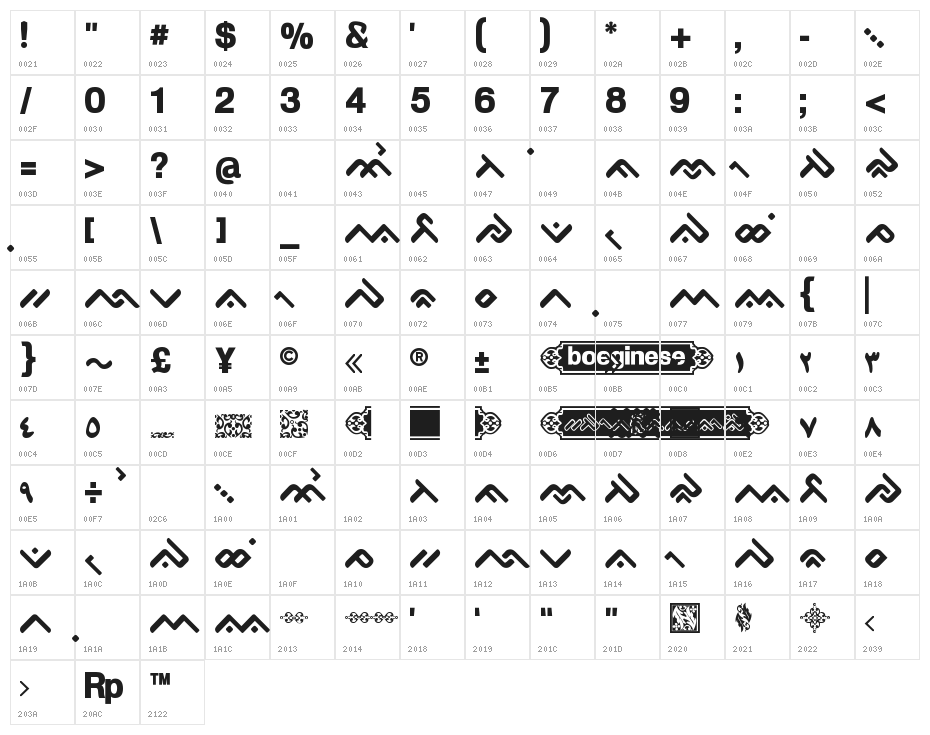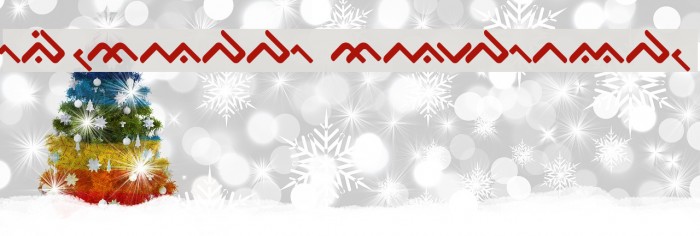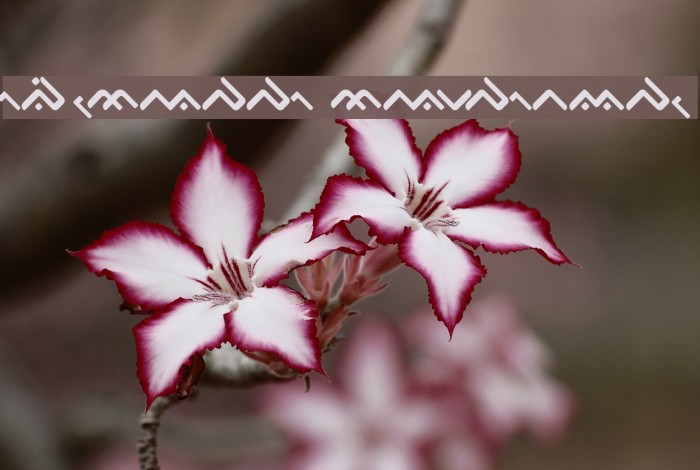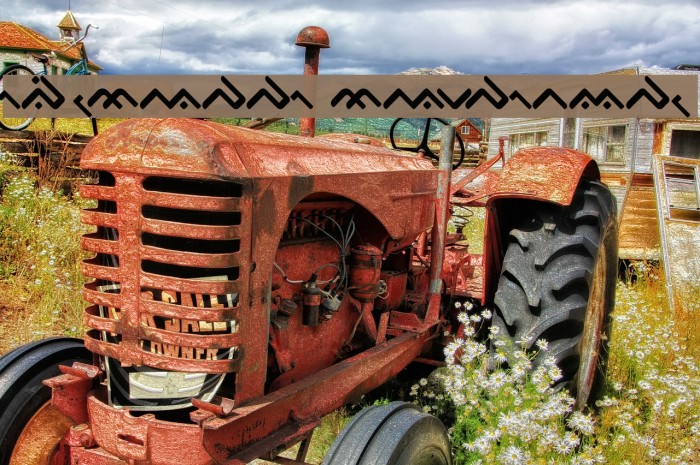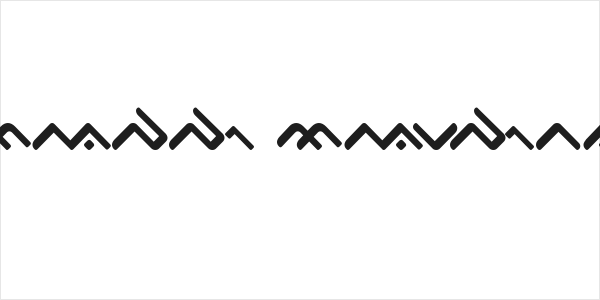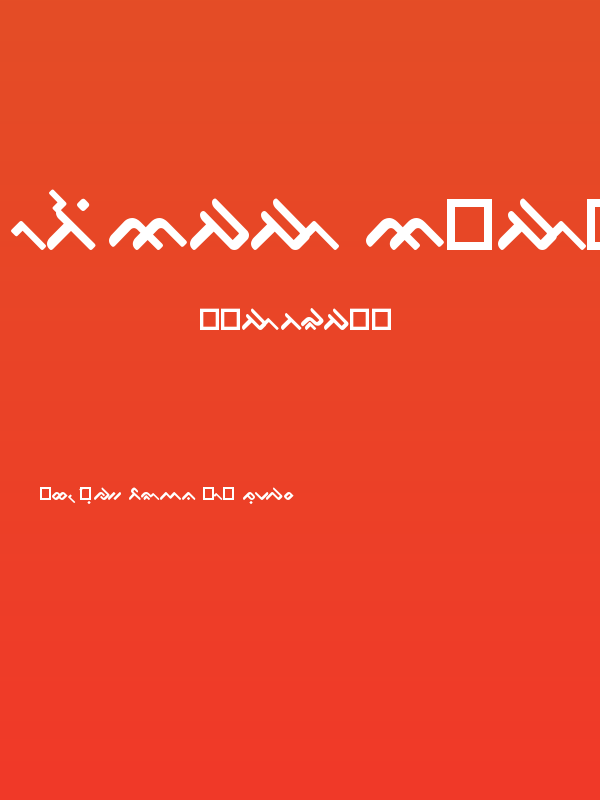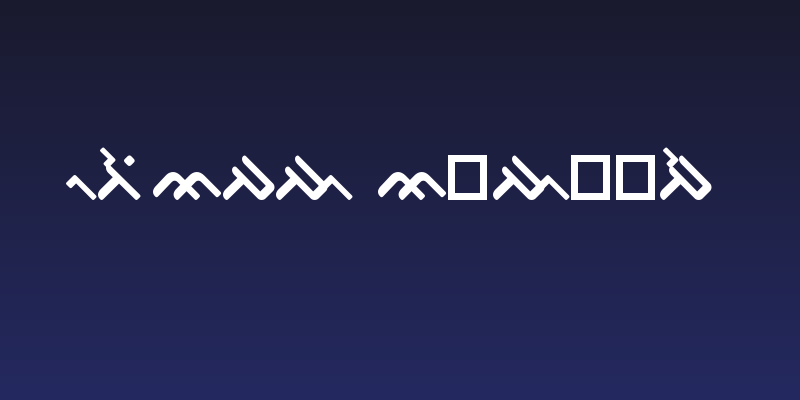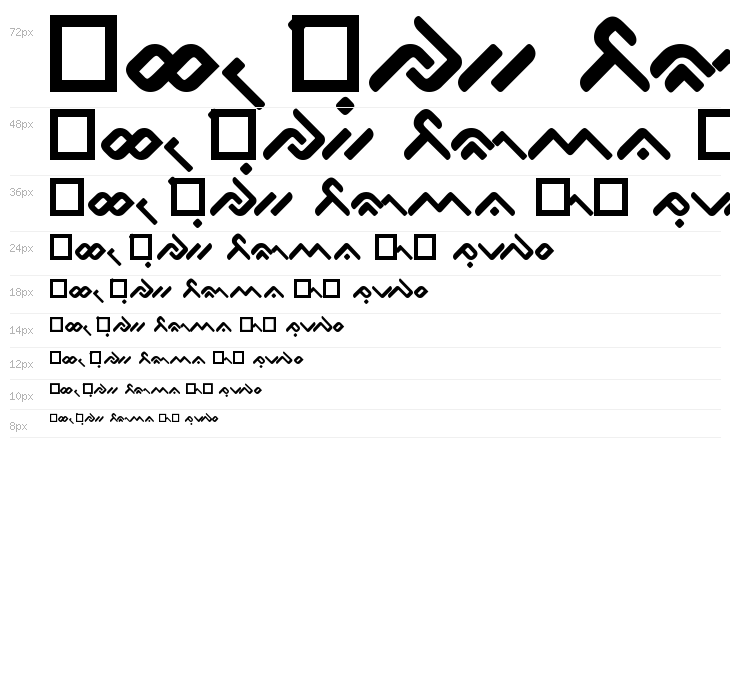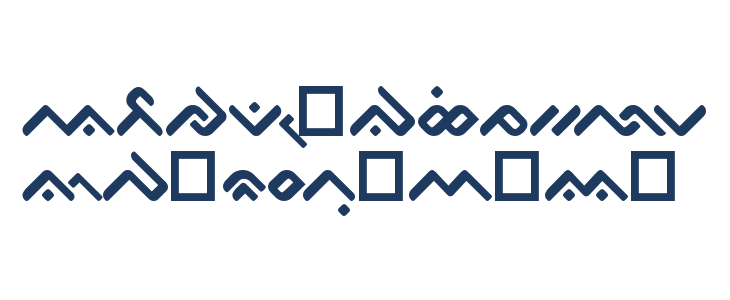
OgieCappo Campotype Font
OgieCappo Campotype Description
This font features a bold, geometric design with thick, uniform strokes that create a strong visual impact. The characters are constructed with sharp angles and straight lines, giving it a modern and industrial feel. The numbers and special characters maintain the same boldness and geometric style, ensuring consistency across all elements. The font's design is highly legible and suitable for various applications where a strong, assertive presence is desired.